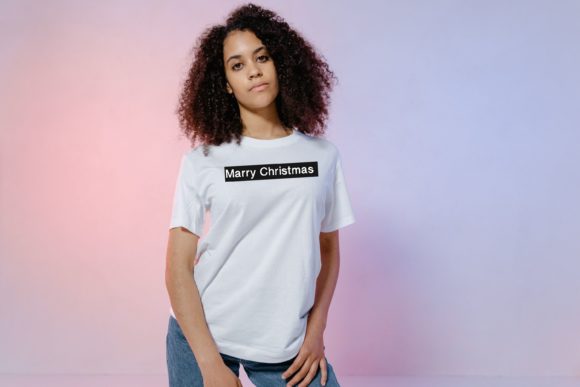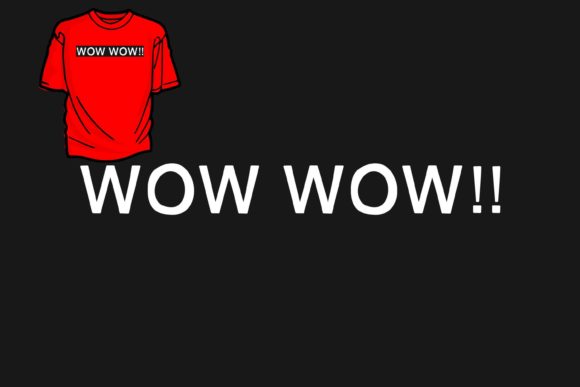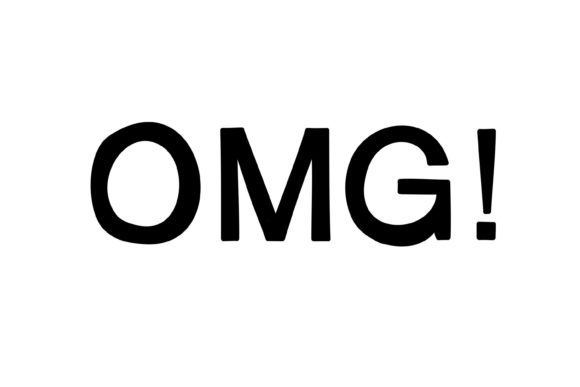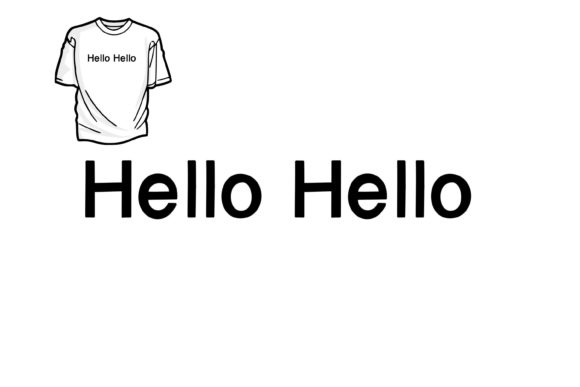
Bringing Your Ideas to Life with Any Time Font
Have you ever found yourself stuck in a creative rut, staring at a blank canvas or screen, wondering how to bring your vision to life? You’re not alone. We’ve all been there at some point or another. But sometimes, all it takes is the right tool to spark that creative flame. For designers, that tool is often a versatile and reliable font.
Enter Any Time Font, a clean and simple lettered sans serif font designed to elevate any project. With its adaptability and timeless appeal, Any Time Font is the perfect addition to your font library. Whether you’re working on a logo, brochure, or website, this font has the potential to enhance your creation and leave a lasting impression on your audience.
Any Time Font Key Features
- Font Style: A modern sans-serif font with a clean and minimalist design.
- Language Support: Supports a wide range of languages, including Latin, Cyrillic, and Greek scripts, making it a versatile choice for international use.
- Unique Characteristic: The font features a unique set of ligatures and alternates that can be accessed through OpenType features, adding an extra layer of sophistication and creativity to your designs.
Designer Review: Any Time Font
Overall, I think the Any Time Font is a decent option for designers looking for a clean and modern sans-serif font. ✨ Here are some of its strengths:
- High legibility: The font is easy to read, even at smaller sizes.
- Flexibility: It works well for both body text and headings.
- Professional look: It gives your design a sleek, modern feel.
- Limited character set: The font may not include all the characters you need, especially in languages that require non-Latin scripts.
- Lack of bold/italic styles: While the font has a range of weights, it could benefit from more bold and italic options.
- Not suitable for display text: While it works well for body text, the font may not be the best choice for large display headings or titles.
Overall, I’d say the Any Time Font is a solid choice for designers who need a clean, modern sans-serif font. While it has its limitations, it’s a versatile option that can add a professional touch to your designs.
Tips for Getting the Most Out of “Any Time Font”
Use “Any Time Font” for headings and titles to add a touch of elegance to your designs.
Combine “Any Time Font” with other fonts to create a unique and eye-catching typography style.
Experiment with different font sizes and colors to achieve the desired effect.
“Any Time Font” is perfect for: